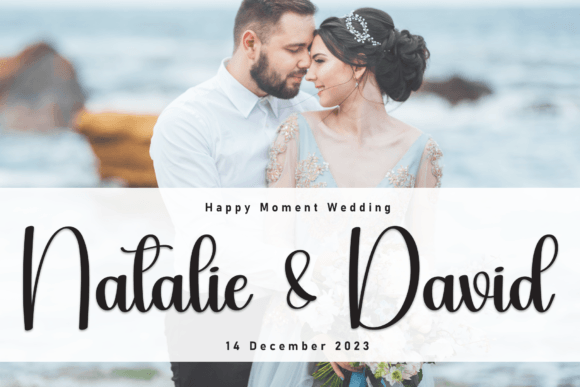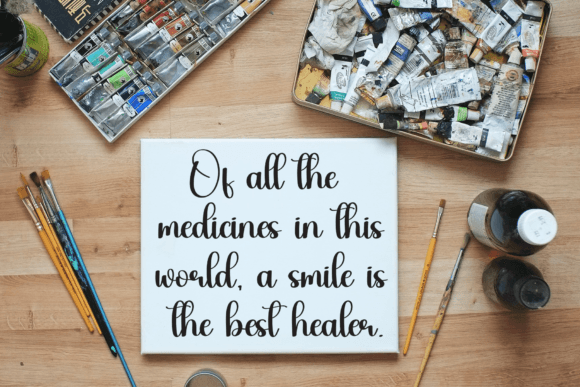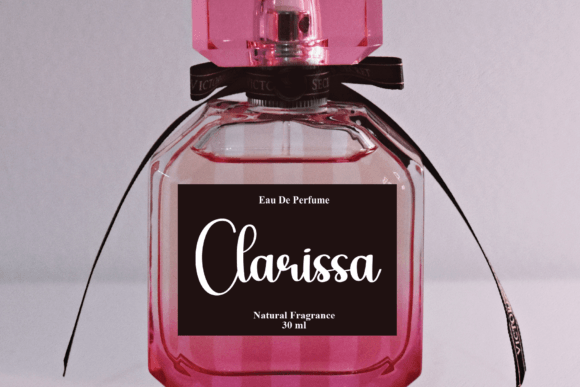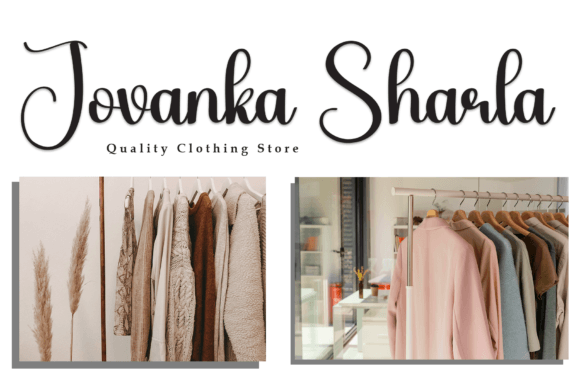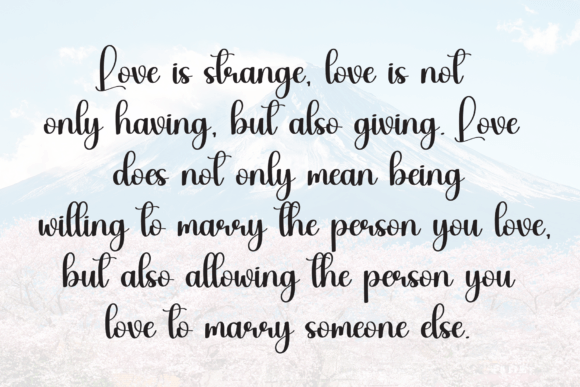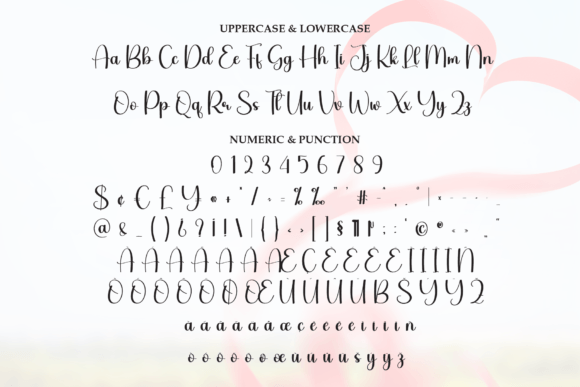
Introducing Happy Valentine Font: The Perfect Choice for Your Valentine’s Day Projects
Are you looking for a font that exudes elegance and romance? Look no further than Happy Valentine Font, a beautiful flowing handwritten font that is perfect for your favorite projects. With its incredibly distinct and timeless style, this font is sure to make your designs stand out.
What is Happy Valentine Font?
Happy Valentine Font is a carefully crafted font that is designed to bring a touch of elegance to your designs. Its flowing handwritten style is perfect for creating romantic and sophisticated designs that are sure to impress. Whether you’re a designer, crafter, or DIY enthusiast, this font is a must-have in your collection.
Key Features of Happy Valentine Font
- Elegant and Refined Design: Happy Valentine Font features an elegant and refined design that is perfect for creating sophisticated designs.
- Flowing Handwritten Style: The font’s flowing handwritten style gives it a unique and personal touch that is sure to make your designs stand out.
- Distinct and Timeless Style: Happy Valentine Font has an incredibly distinct and timeless style that will make your designs look great for years to come.
- Perfect for Valentine’s Day Projects: As the name suggests, Happy Valentine Font is perfect for Valentine’s Day projects, but it’s also versatile enough to be used for other designs and projects.
How to Use Happy Valentine Font
Using Happy Valentine Font is easy and straightforward. Here are a few ways you can use this beautiful font:
- Valentine’s Day Cards and Invitations: Create beautiful and romantic Valentine’s Day cards and invitations that will make your loved ones feel special.
- Wedding Designs: Use Happy Valentine Font to create stunning wedding designs, including wedding invitations, programs, and more.
- DIY Crafts: Add a personal touch to your DIY crafts, such as scrapbooking, journaling, and more.
- Digital Designs: Use Happy Valentine Font to create beautiful digital designs, including social media graphics, blog posts, and more.
Why Choose Happy Valentine Font?
There are many reasons why you should choose Happy Valentine Font for your next project. Here are a few:
- Unique and Personal Touch: Happy Valentine Font adds a unique and personal touch to your designs that will make them stand out.
- Elegant and Sophisticated: The font’s elegant and sophisticated design makes it perfect for creating romantic and refined designs.
Tips and Tricks for Using Happy Valentine Font
Here are a few tips and tricks for using Happy Valentine Font:
- Use it with Other Fonts: Happy Valentine Font pairs well with other fonts, so feel free to experiment with different combinations.
- Experiment with Colors: Try out different colors and color combinations to see what works best with Happy Valentine Font.
- Add Decorations: Add decorations, such as flowers or hearts, to give your designs an extra touch.
- Keep it Simple: Don’t be afraid to keep it simple and use Happy Valentine Font on its own.
In conclusion, Happy Valentine Font is a beautiful and elegant font that is perfect for your favorite projects. With its flowing handwritten style and incredibly distinct and timeless design, this font is sure to make your designs stand out. Whether you’re a designer, crafter, or DIY enthusiast, Happy Valentine Font is a must-have in your collection.